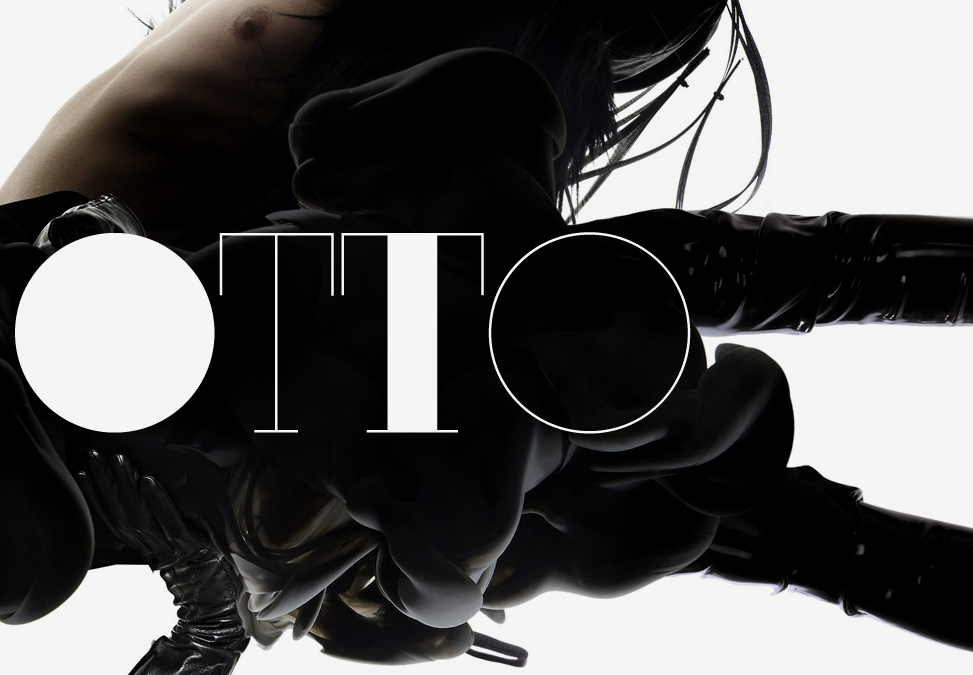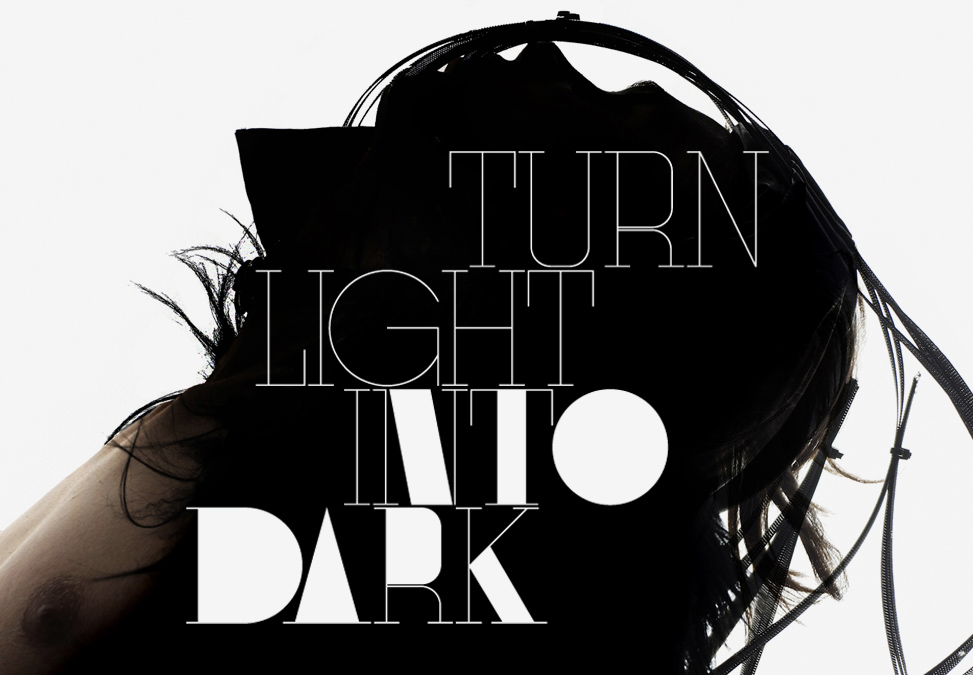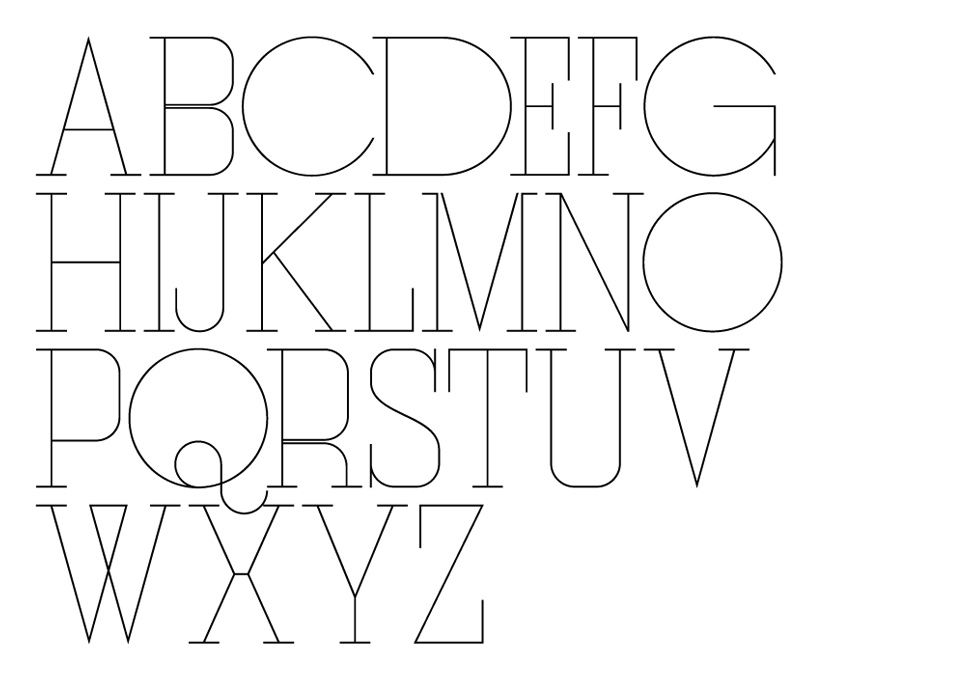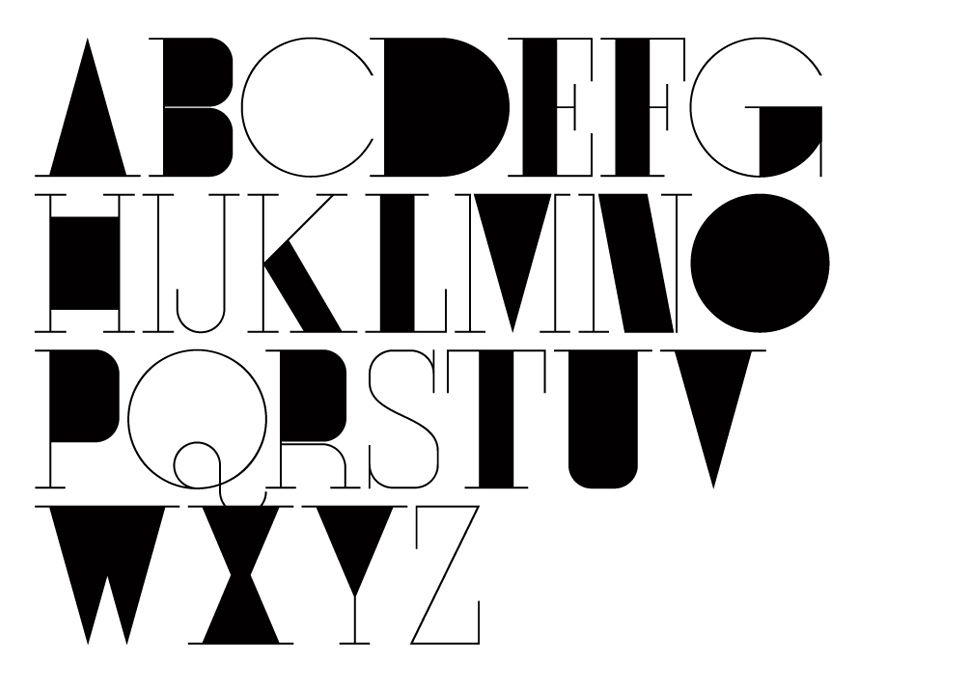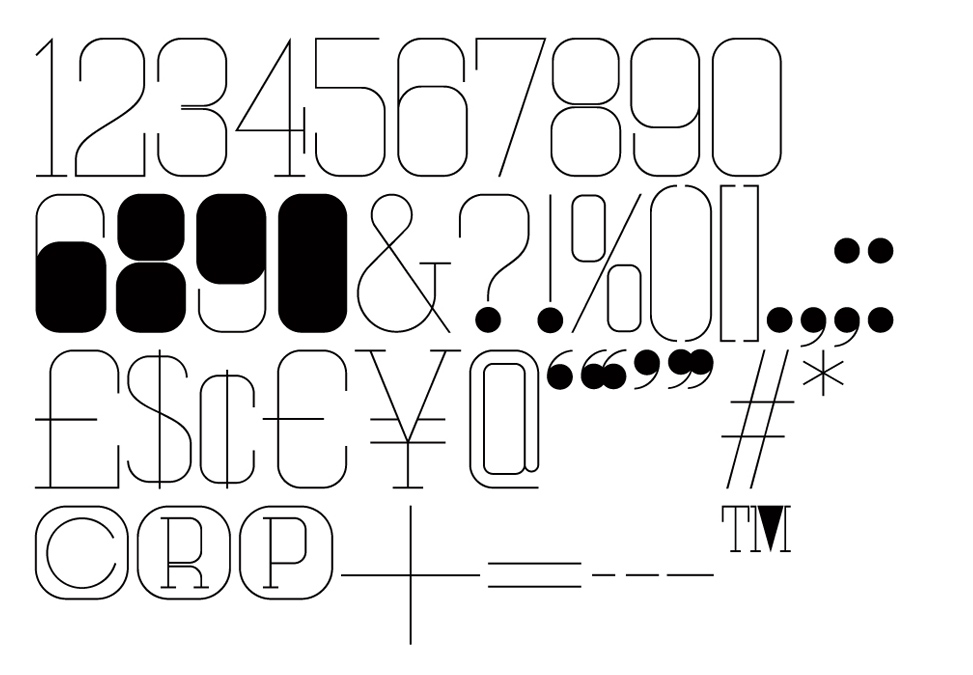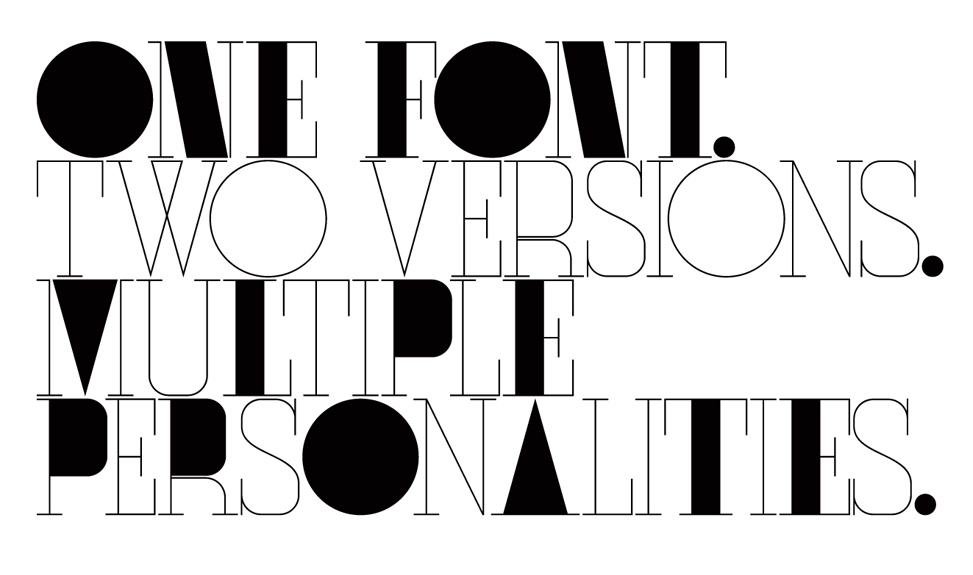
The world renowned Non-Format studio is made up of design duo Kjell Ekhorn & Jon Forss. Working together since 2000, Jon & Kjell have produced some of the most ground breaking design work of the last ten years. Otto offers an alternate version for many of its characters but both versions are conveniently bundled within a single font. Text in lowercase appears in the Light version, while capitals reveal the Dark side of Otto. Download Otto Font ›